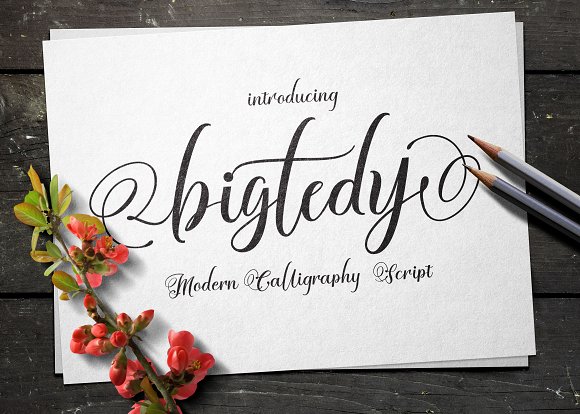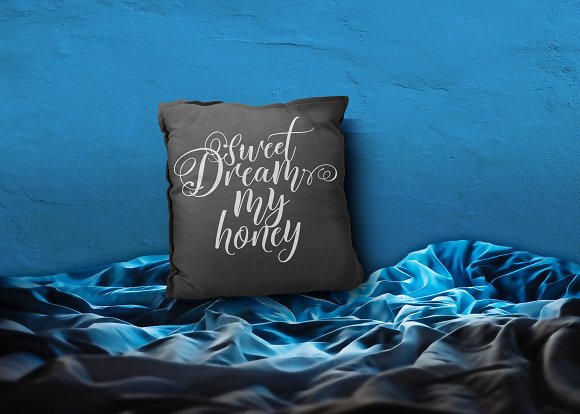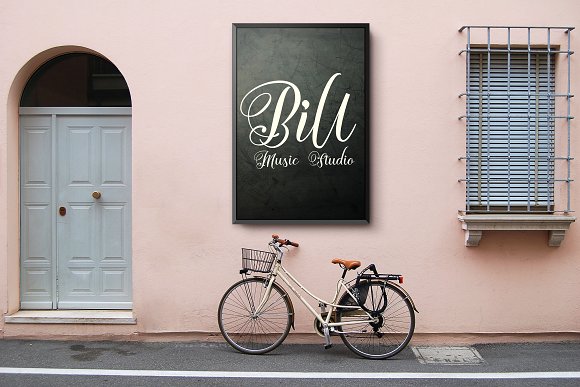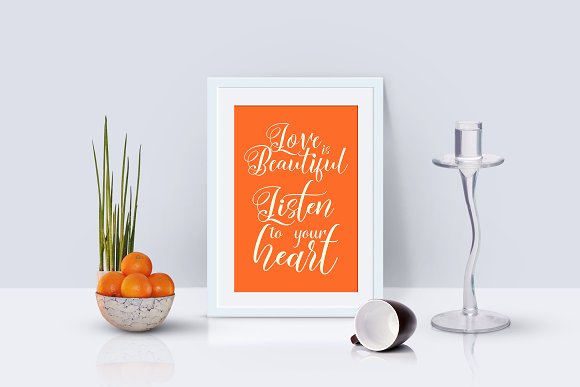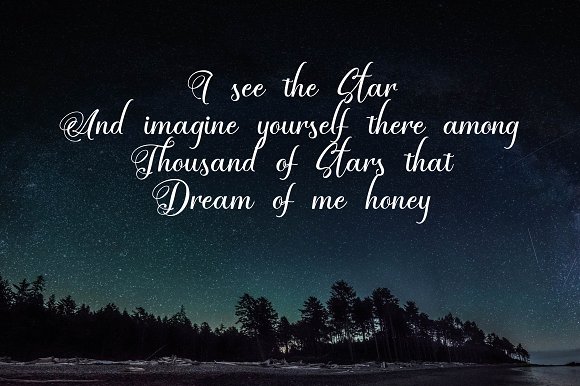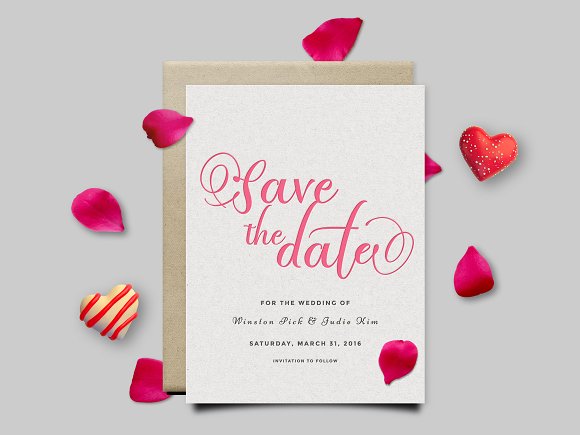
Bigtedy Font
About Bigtedy Font
Bigtedy, a beautiful handwritten script. It’s a fluid font that works well in many different types of projects.
This professional looking font is easy to read and works well for marketing & branding as well as craft projects.